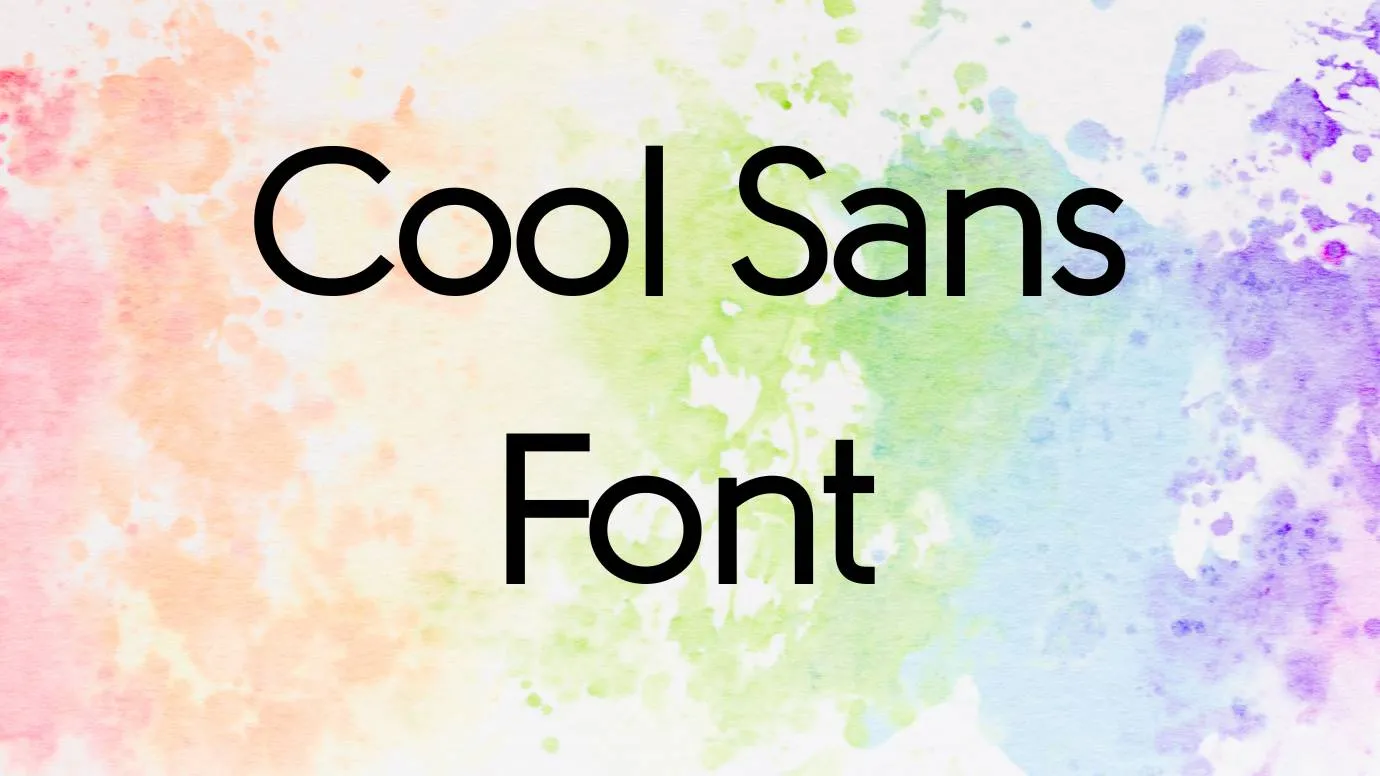
Cool Sans has more than 110 stylish and broken characters. It was developed for the first time by Kongkow. This is an amazing sans-serif font with a unique and stylish touch. This font is perfect for branding, invitations, quotes, headers, logos, prints, and more.
This typeface includes different styles like regular, bold, and light. Also, its thin strokes make it perfect for both digital and print designs. You can use its similar snapchat font which has the same style.
Cool Sans Font